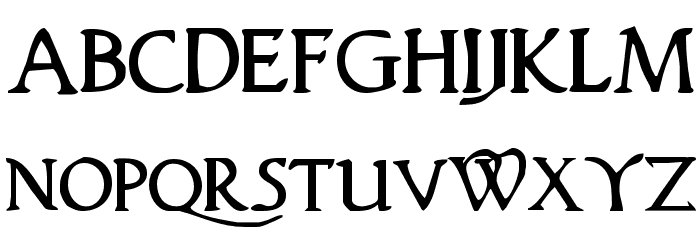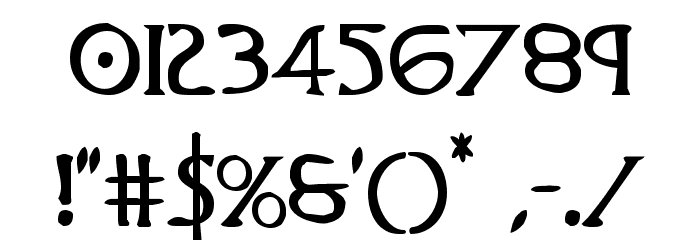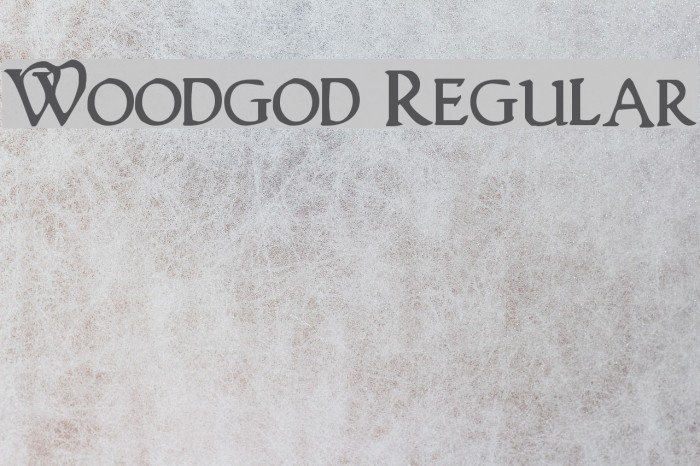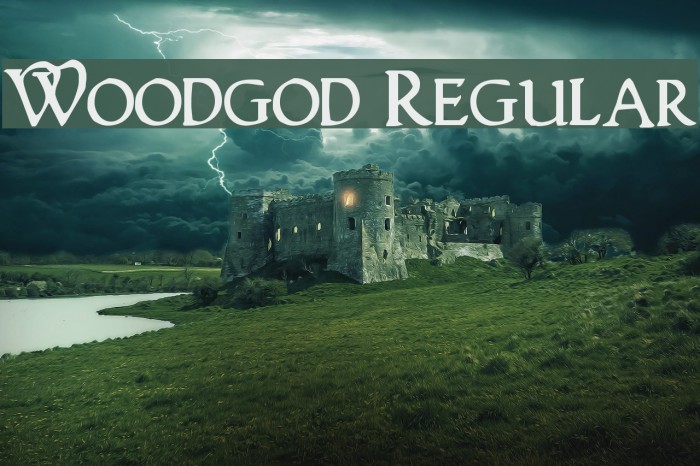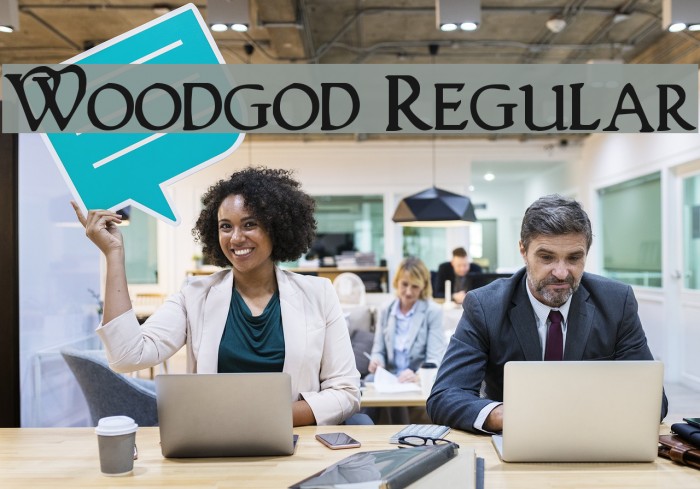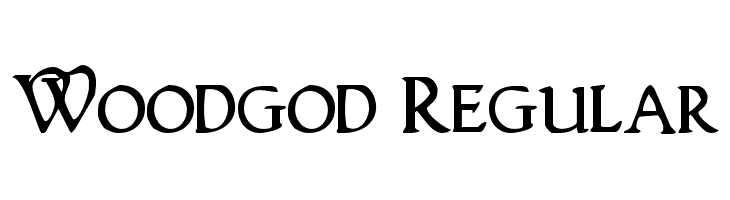
Woodgod Regular Font
This font features a unique blend of classic and decorative elements, characterized by its elegant and slightly whimsical design. The uppercase letters exhibit a distinct flair, with some characters incorporating subtle curves and extensions that add a touch of sophistication. The lowercase letters maintain a consistent style, complementing the uppercase with their smooth and flowing lines. The numerals are bold and clear, ensuring readability while maintaining the overall aesthetic. Special characters are creatively designed, adding to the font's decorative appeal. This font's artistic style makes it suitable for projects that require a touch of elegance and creativity.
A decorative font with elegant curves and a classic yet whimsical style.
- Proposed Projects: Ideal for invitations, branding, logos, and artistic projects that require a sophisticated touch.
- Use Case: Logos, Invitations, Artistic projects